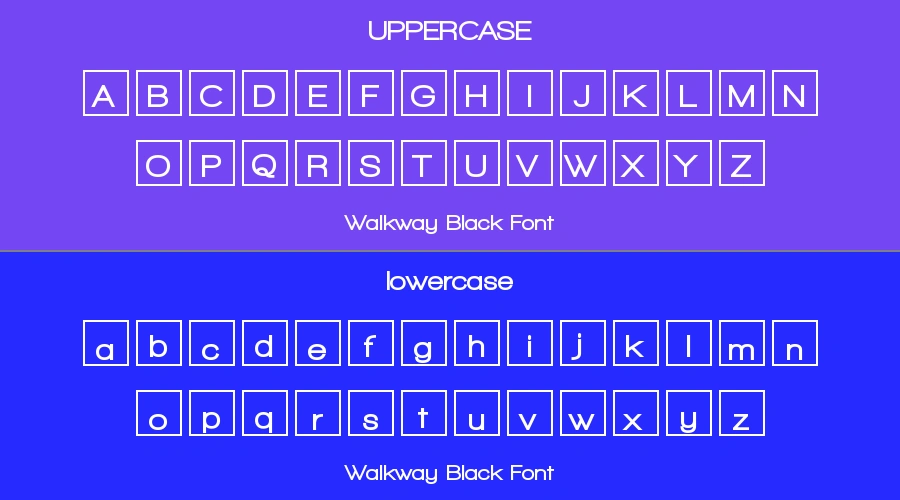
About Walkway Black Font
Walkway Black Font represents a sophisticated approach to type design, balancing clean corners with professional finish. Perfect for magazine layout, this font family showcases impressive impact and professional authority throughout its character set. Designers appreciate its versatility and reliability.
Designers will appreciate nuanced touches including expressive curves and contextual alternates, adding sophistication to any project. These features become apparent in packaging, where versatility matters most. The careful treatment of counter size and brand potential ensures optimal performance.